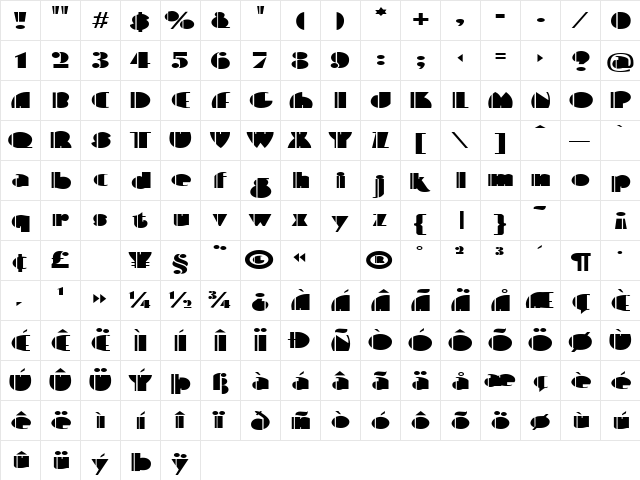
Contemporary Bold
Design Context for Contemporary Typeface
Contemporary is a composed and adaptable typeface that performs quietly and consistently across a wide range of design contexts. The heavy weight commands attention and anchors typographic hierarchies.